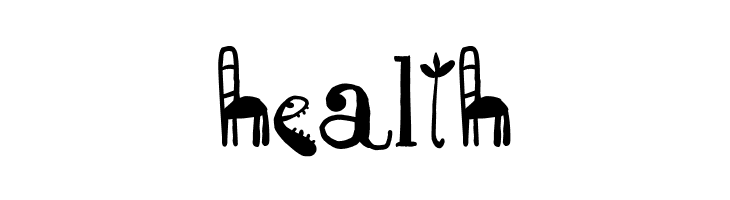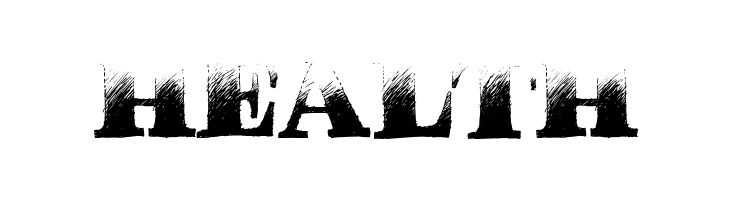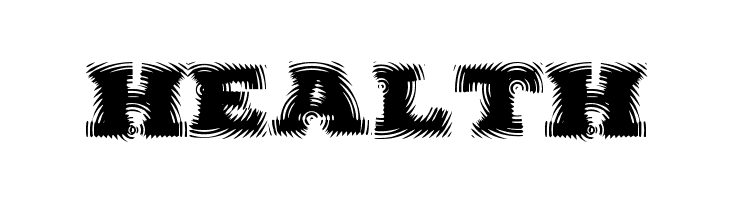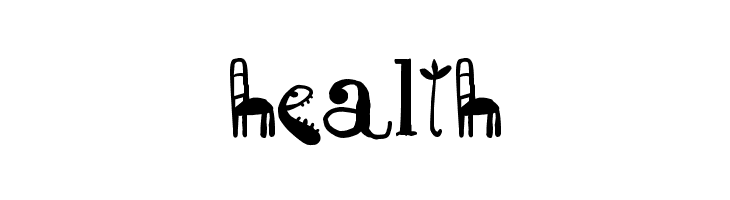
A bold, distressed font with a vintage, rugged appearance.
A bold, decorative typeface with a hypnotic, swirling pattern.
A bold, dotted font with a unique and textured appearance.
A bold, decorative font with swirling patterns for a dynamic look.
A whimsical and playful font with unique, decorative characters.